Ever feel like your designs are missing that certain something? That little spark of playful character? Maybe it's time to rewind a bit and embrace the beautiful simplicity of the pixel. Once the undisputed champions of screen typography, pixel fonts are experiencing a vibrant resurgence, proving that sometimes, less is truly more. These aren't just your grandpa's computer letters, though! Today's pixel fonts offer a surprising range of personalities, ready to add a unique and nostalgic twist to your web designs, print-on-demand creations, and game interfaces. Intrigued? We thought so! Join us as we dive into our handpicked list of the 15 best pixel fonts guaranteed to give your designs that perfect retro remix.
Alright, now that we've got that retro craving going, let's dive into the pixelated goodness! We've rounded up a fantastic collection of fonts that go way beyond basic blocks. Get ready to see how these fifteen unique pixel styles can bring a whole new level of character and charm to your creative toolkit. Prepare for some serious pixel inspiration!
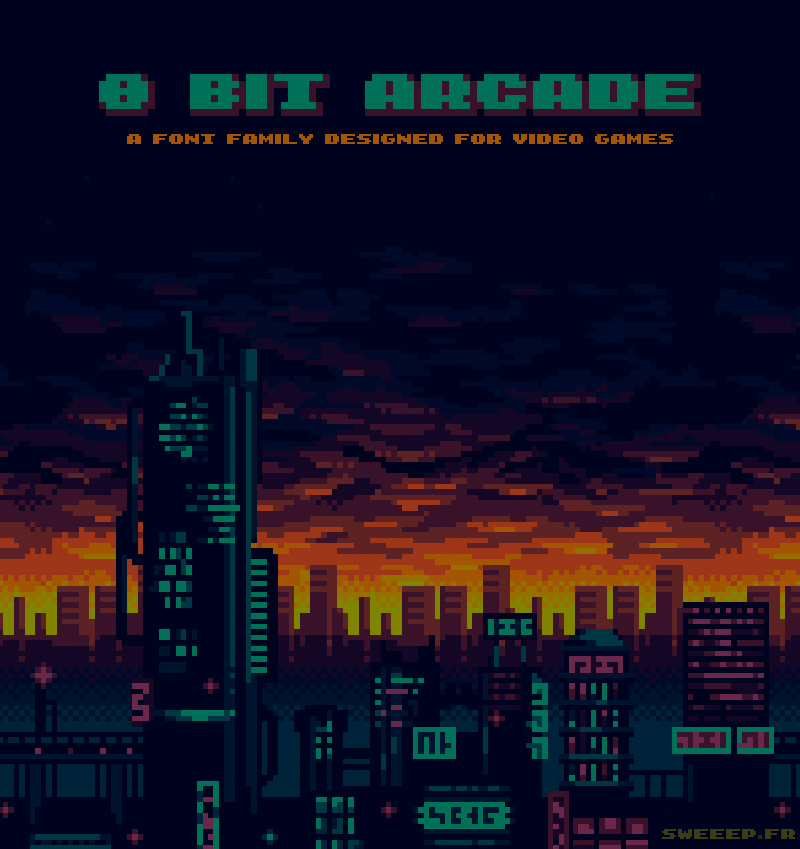
Alright, let's kick off our pixel parade with a font that truly lives up to its name: 8-bit Arcade by Damien Gosset.
This font practically screams retro gaming! With its clean, distinct blocks and a nostalgic nod to classic arcade titles, 8-bit Arcade is a fantastic choice for projects that need that authentic old-school feel. Whether you're designing graphics for a pixel art game, creating a retro-inspired logo, or adding a touch of vintage flair to a print-on-demand t-shirt, this font delivers the pixelated punch you're looking for. It even comes in "In" and "Out" styles, offering some cool versatility for outlining text or creating different visual effects. Plus, it's 100% free for both personal and commercial use – a definite win! You can grab this gem over at DaFont
Next up, we have a font that will resonate with fans of a certain quirky and beloved indie game: Deltarune by Retro Gaming.
If you're looking for a pixel font with a bit more character and a slightly softer edge than the classic blocky style, Deltarune is a fantastic choice. Inspired by the logo of the popular game Deltarune, this font offers a unique blend of sharp and slightly rounded pixels, giving it a distinct personality that's both retro and modern. The creator even suggests a specific text size (18.5) and a clever trick for maximum accuracy (using an uppercase 'E' for the lowercase 'e' at the end of words!). This attention to detail makes it perfect for fan projects, game-inspired designs, or anything that needs a touch of that endearing indie game aesthetic. And the best part? It's also available for free! You can snag this font over at DaFont.
Moving on, let's hit play on a font that evokes the nostalgic charm of rewinding your favorite VHS tapes: Home Video by GGBotNet.
This font has that unmistakable low-resolution, slightly chunky feel that instantly transports you back to the era of analog home entertainment. It's got a certain warmth and familiarity that makes it perfect for projects aiming for a truly vintage, slightly worn aesthetic. Imagine using it for a retro-themed web design, a print-on-demand piece with a nostalgic slogan, or even as UI text in a game set in the late 20th century. The fact that it comes in both Regular and Bold weights adds to its versatility. Best of all, it's in the public domain, meaning you can use it freely for pretty much anything! You can find this blast from the past over on DaFont.
Alright, next up on our pixelated journey is a font that proudly wears its retro heart on its sleeve and might just make you want to jump for joy: Super Pixels by snapedsgn.
This font doesn't just hint at pixels; it stomps them flat with a playful energy that feels straight out of the Mushroom Kingdom! With its bold, chunky letterforms and the use of distinct, vibrant blocks reminiscent of classic Super Mario games, Super Pixels is perfect for making a statement. It's got that classic 8-bit video game aesthetic down pat, making it ideal for game design projects, eye-catching headlines that feel like they popped right out of a level intro, logos with a retro twist that would make Mario proud, or even bold designs for print-on-demand products that scream "player one!" The designer even suggests it for movies, documentaries, and book covers – showcasing its versatility beyond just gaming. While it's a premium font available on Graphic River, its strong visual impact and undeniable Super Mario-esque charm might just make it a worthwhile investment for projects where that bold pixelated look is key. It's like the power-up of pixel fonts
Next up, let's take a ride on the Bitroad by PradiptaCreative!
This font isn't your typical straight-laced pixel design. Bitroad injects a dose of edgy Y2K energy into the classic pixelated look. 1 It's described as blending nostalgic 80s and 2000s styles, resulting in a typeface that feels both retro and surprisingly modern. The slightly jagged edges and unique letterforms give it a distinct personality that's perfect for making bold statements in headlines, logos, or even adding a unique flair to pixel game interfaces. The fact that it comes in four styles (normal, italic, monospaced, and mono-italic) offers fantastic versatility for different design applications. Bitroad is another premium option available on Creative Fabrica, and its distinctive and adaptable style could be a great asset for projects aiming for that cool, retro-futuristic vibe.
Let's plug into our next pixel powerhouse: Techbit by Pandeka Studio!
This font offers a slightly more refined take on the pixel aesthetic. While still distinctly pixelated, it features a "soft pixel" design with slightly rounded edges, giving it a more modern and approachable feel. The clean, geometric letterforms make it highly legible, making it a great option for UI elements in games and apps, as well as branding and digital designs that want a touch of retro without feeling overly blocky. What's really cool about Techbit is that it comes in a family of five styles: Regular, Outline, Rounded, Outline Rounded, and Slant. This versatility allows you to create a cohesive visual identity across different applications. Techbit is another premium font available on Creative Fabrica, and its clean, adaptable pixel style could be a valuable addition to your font library.
Alright, let's get a little funky with our next pick: Groovy Pixel by Groovy Font!
As the name suggests, this font brings a certain "groovy" vibe to the pixelated world. It's got a chunky, almost bubbly feel to its pixel structure, giving it a playful and approachable personality. Reminiscent of classic retro video game aesthetics, Groovy Pixel is perfect for projects that want to evoke a sense of fun and nostalgia without being strictly rigid. Imagine it on a retro-themed app interface, a vibrant print-on-demand design, or even adding a touch of lightheartedness to a game project. While it's available on Creative Fabrica, its unique and friendly pixel style could be just what you need to make your designs stand out with a bit of retro charm.